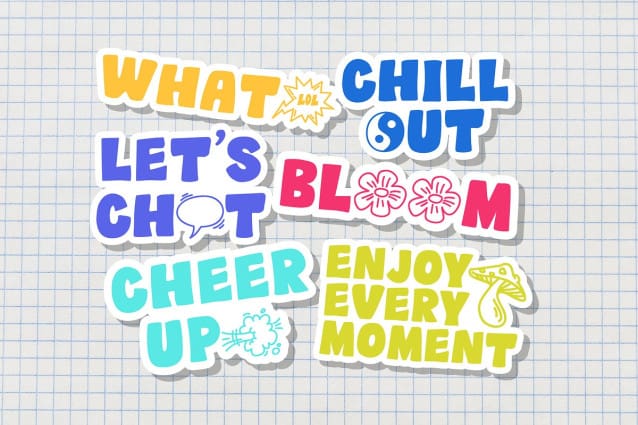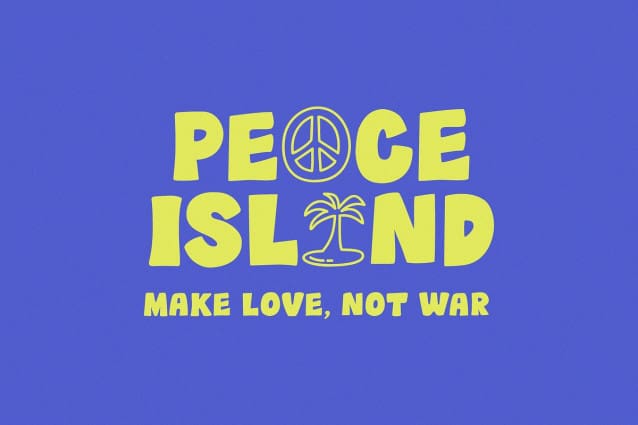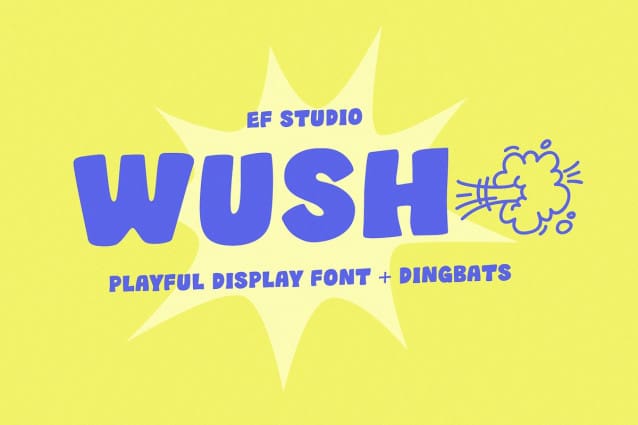
Wush Playful Font
Wush Playful Font is a playful display font with extra dingbats. This all caps font brings a delightful and playful vibe to any design. Its bouncy curves and bold strokes are perfect for adding a touch of fun and excitement! Ideal for comics, books, and whimsical projects.